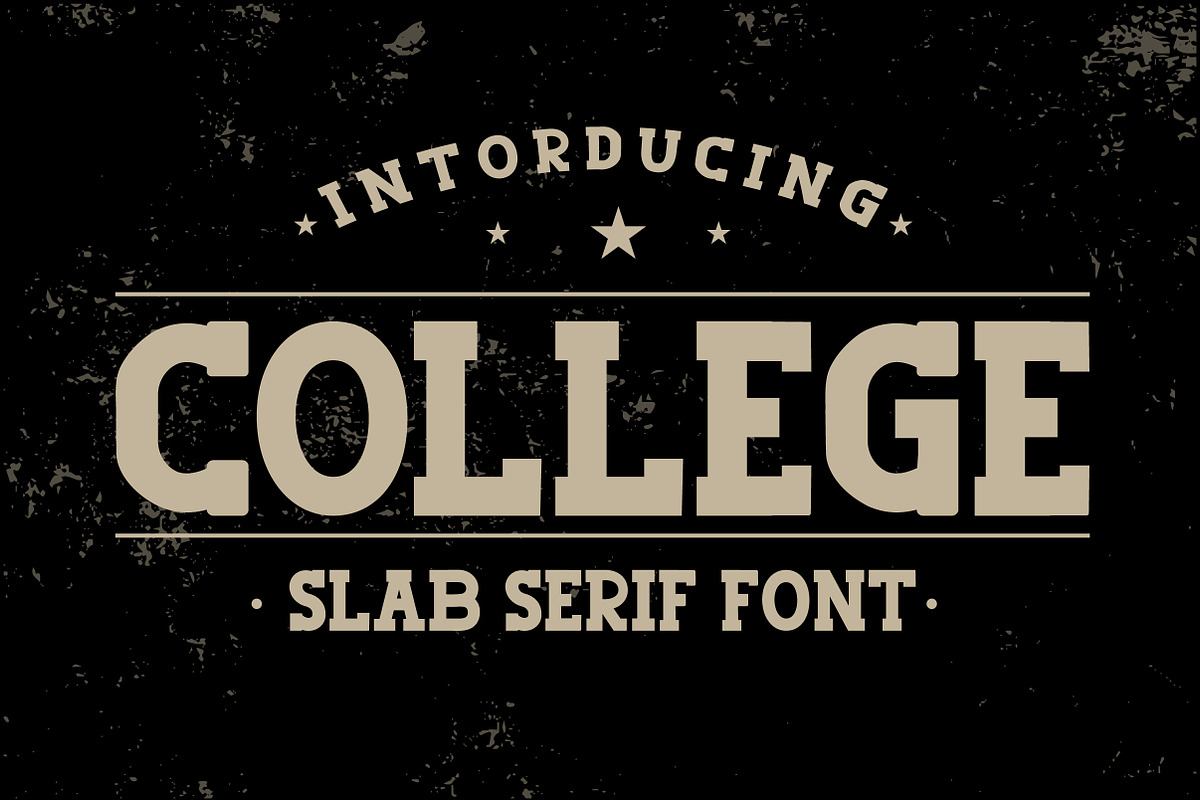
College Free Download
College Font Free Download is a bold, all-caps typeface inspired by classic collegiate lettering—perfect for designs that demand strength, tradition, and school spirit. Please note, you are required to purchase this font for commercial use. It is available for free download for testing and personal projects only.
With its blocky shapes, clean lines, and varsity-style appeal, College Font is ideal for sports jerseys, university merchandise, team branding, posters, yearbooks, and academic-themed content. It instantly gives your designs a classic American campus vibe with timeless impact.